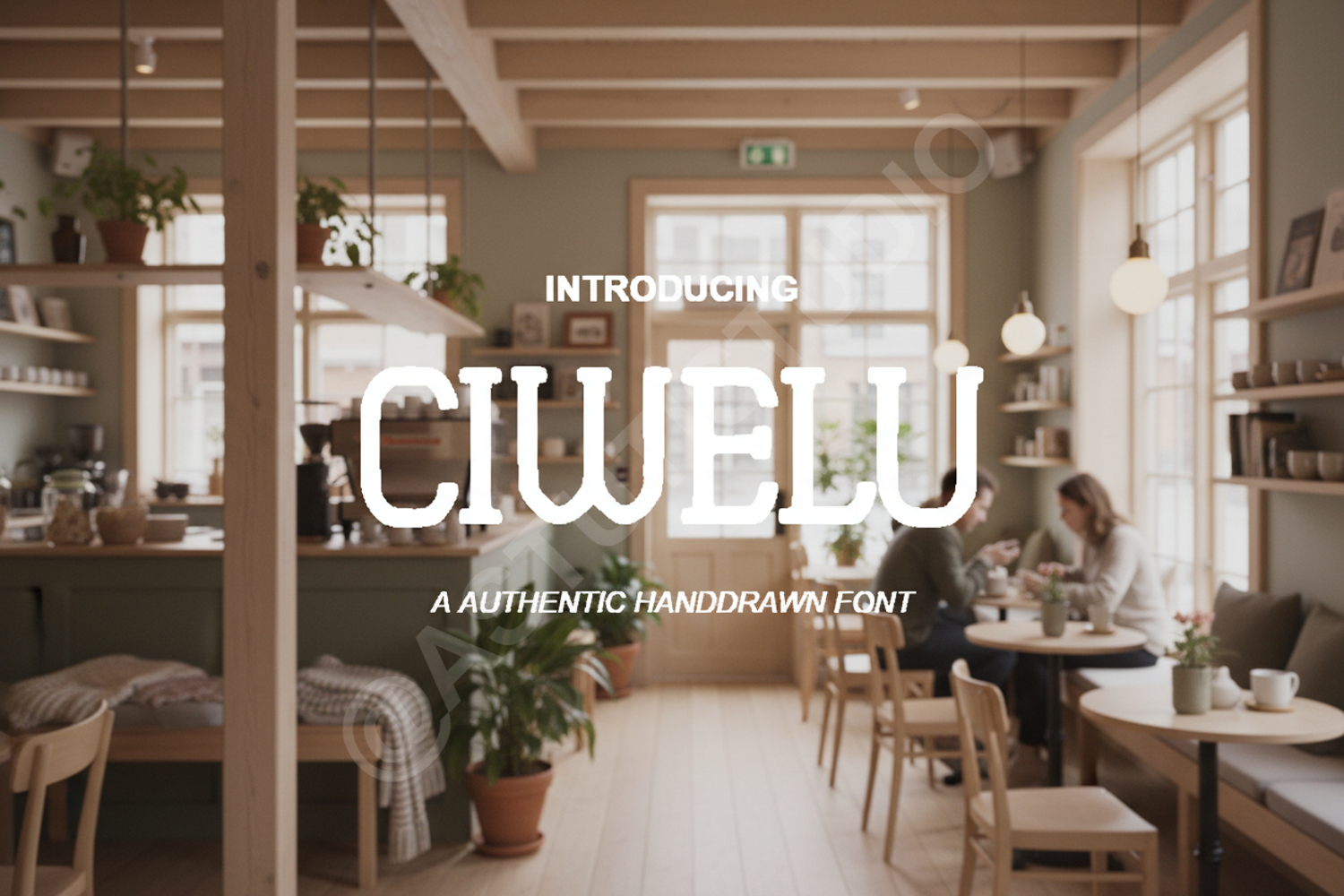
Ciwelu - Modern Elegant Serif Typeface
Ciwelu
Elevate your creative projects with Ciwelu, a premium serif typeface designed for sophistication and timeless appeal. Ciwelu blends classic letterforms with modern proportions, offering a high-end aesthetic that captures attention while remaining effortlessly legible. Whether you are working on a luxury brand identity or a minimalist editorial layout, this font provides the versatility and professional polish required for top-tier design work.
- Branding and Identity: Create memorable logos and brand marks for high-end businesses.
- Wedding Stationery: Add a touch of class to invitations, menus, and place cards.
- Editorial Design: Perfect for magazine headers, book covers, and sophisticated body text.
- Social Media: Design striking quotes and promotional graphics that stand out in any feed.
- Product Packaging: Enhance the perceived value of premium goods with elegant typography.